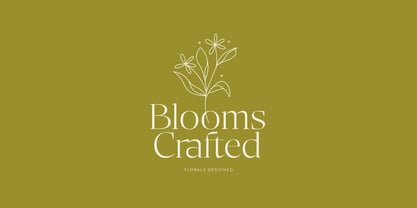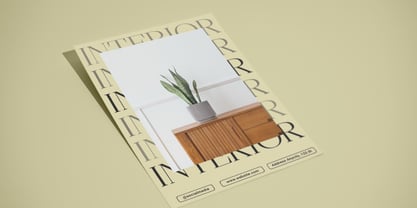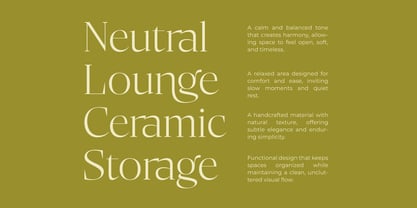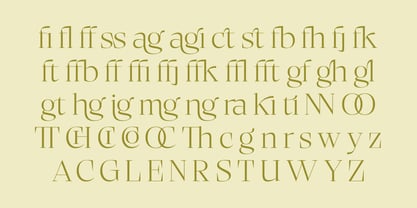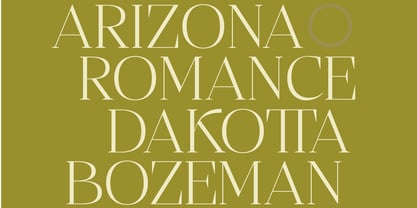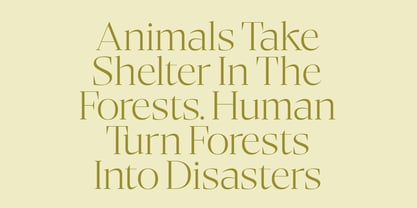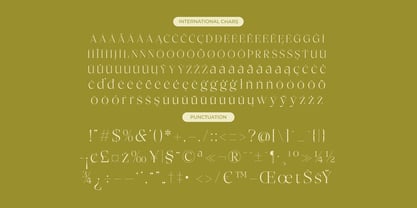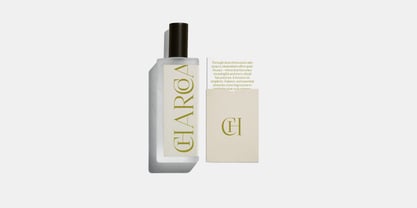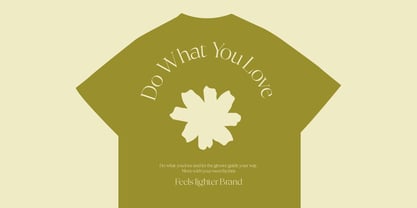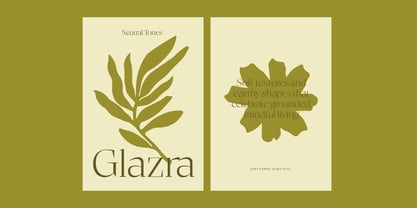
Bigest Karath
by Timelesstype Studio
The Bigest Karath Font Family was designed by Heru Utama Putra and published by Timelesstype Studio. Bigest Karath contains 2 styles and family package options. More about this family
Bigest Karath is a refined thin-serif display font crafted for elegant, high-end visual identities. Its tall proportions, sharp serifs, and sculpted curves give it a luxurious editorial presence—perfect for fashion branding, magazine headlines, perfume packaging, boutique logos, and minimalist premium layouts. With 38 ligatures and 37 alternates, this typeface gives you extensive stylistic flexibility, allowing each word to feel custom-designed. Bigest Karath is graceful, modern, and unmistakably sophisticated, ideal for any project that demands a clean yet artistic serif aesthetic.